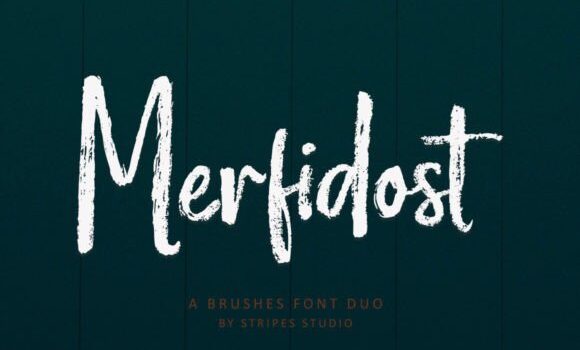
Merfidost Font – Free Download Introduction to Merfidost Font Hi, Introducing the latest styles Merfidost Font Duo with the kind of modern hand scratches, I hope you are interested in this font, if you want to use for your work